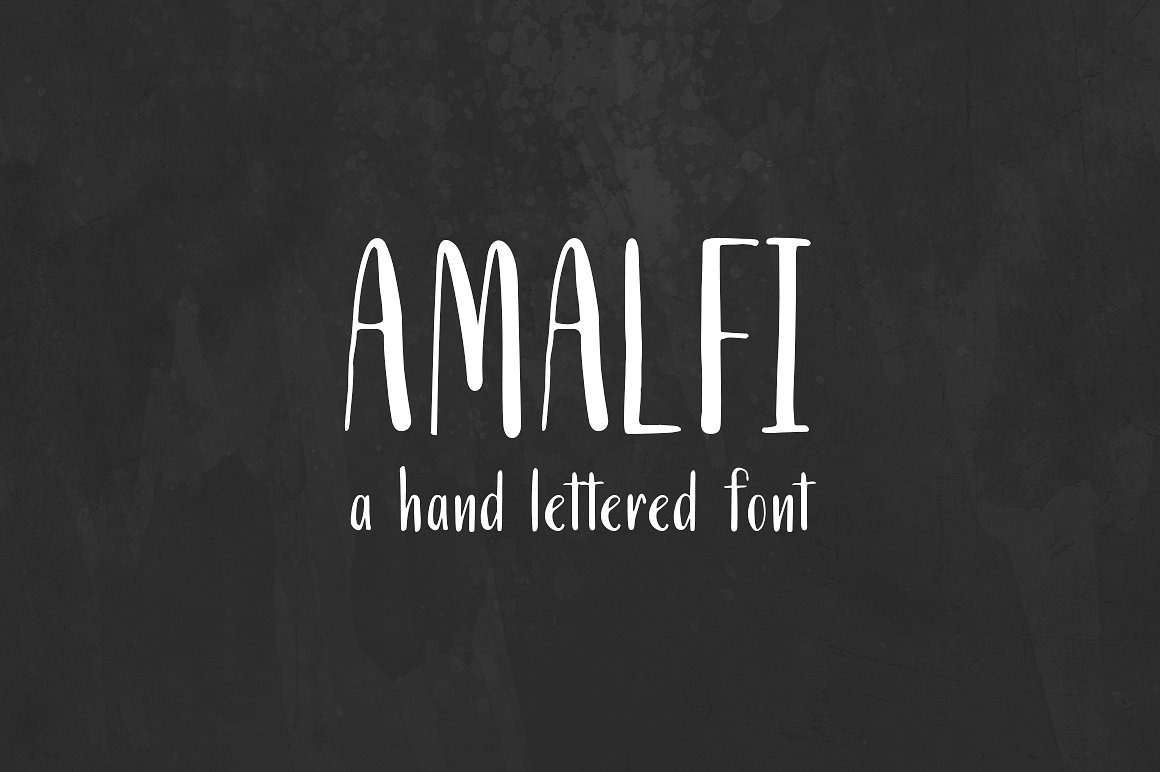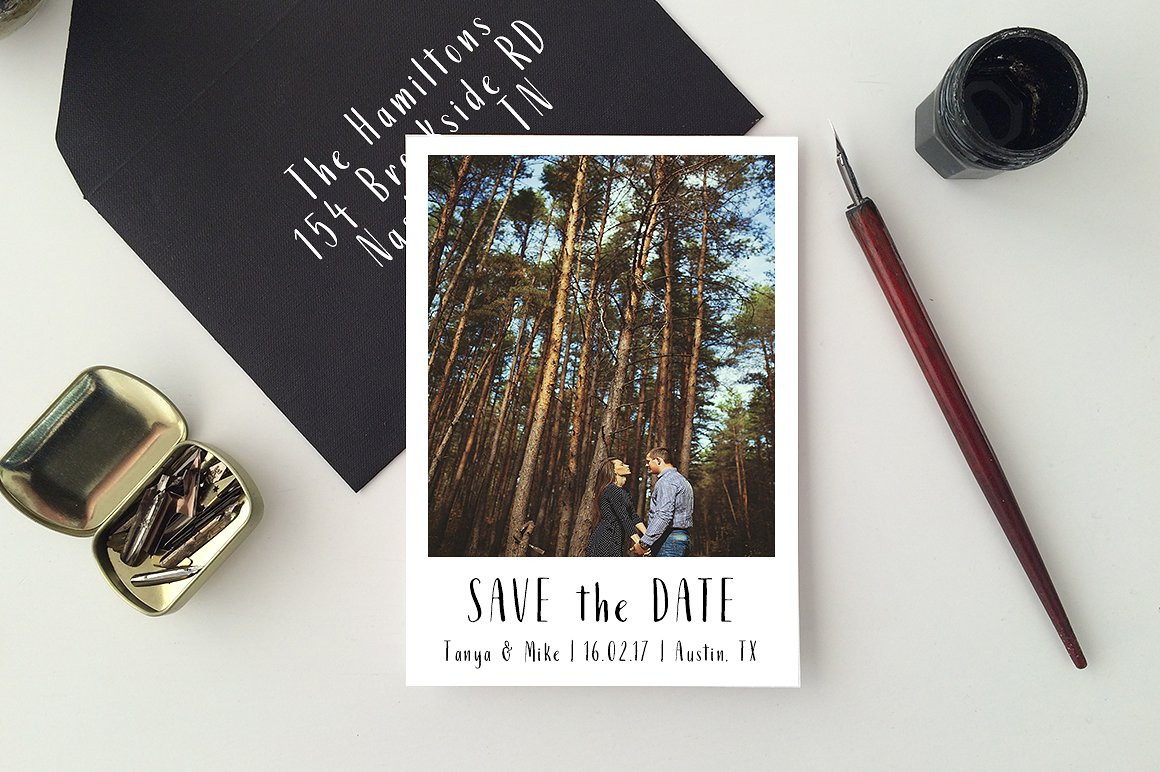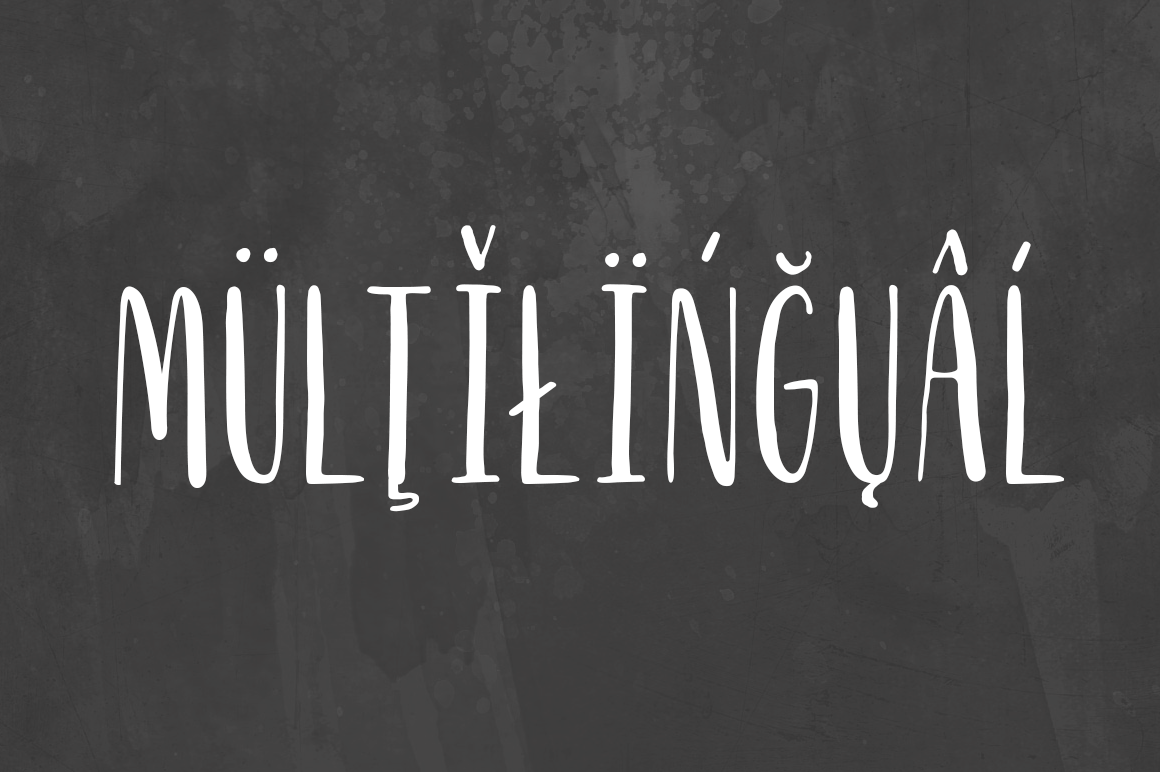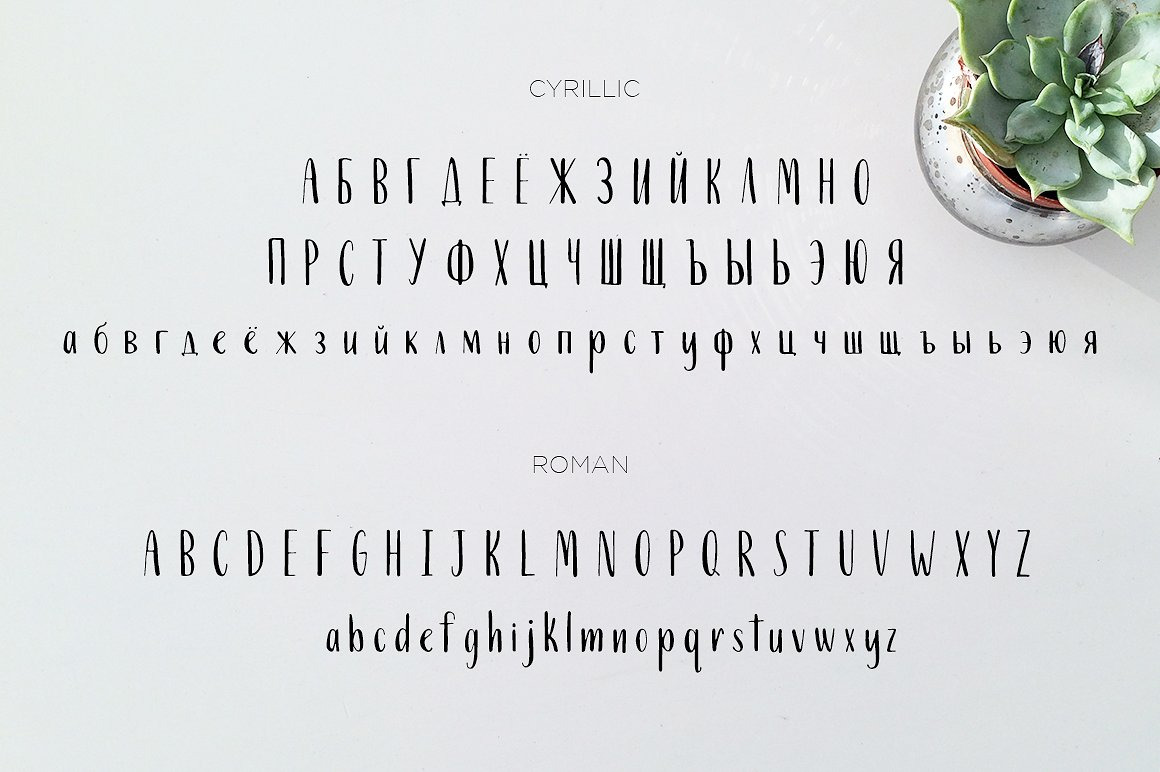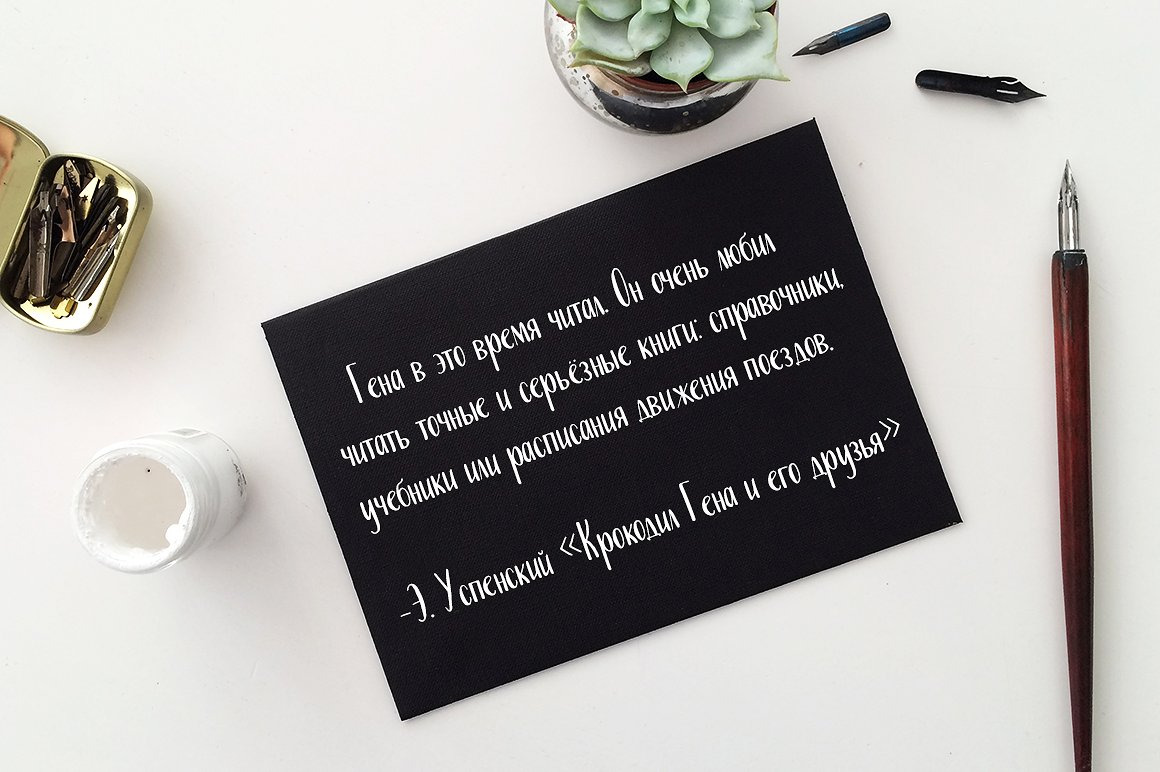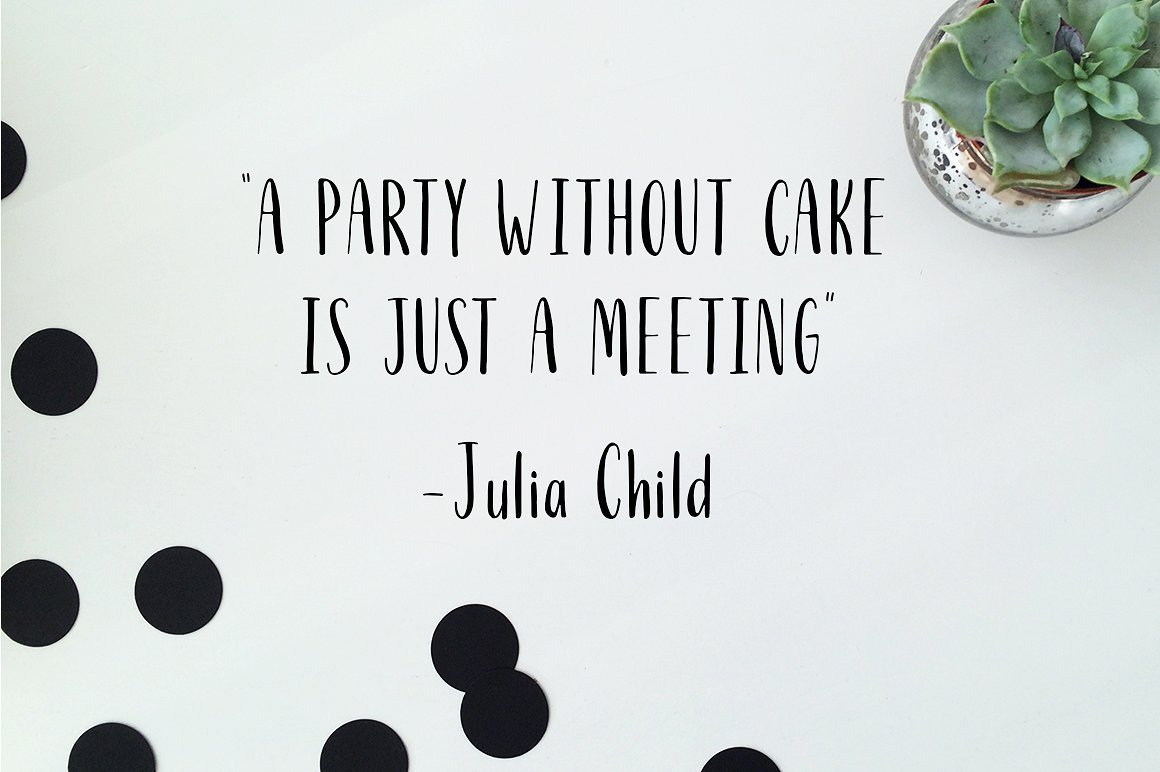
Amalfi. Multilingual + Cyrillic Font
Amalfi Multilingual Cyrillic Font is perfect for international branding, multilingual publications, global marketing campaigns, cultural projects, Eastern European websites, Russian language materials, Ukrainian publications, Bulgarian designs, Serbian content, and worldwide corporate communications.
What makes Amalfi Multilingual Cyrillic Font so exciting is its comprehensive language support that bridges Latin and Cyrillic scripts seamlessly while maintaining consistent design harmony. This exceptional typeface enables designers to create cohesive multilingual projects without compromising typographic quality or visual unity.
The Amalfi Multilingual Cyrillic Font family includes regular, medium, and bold weights with complete Latin and Cyrillic character sets, featuring authentic letterforms for Russian, Ukrainian, Bulgarian, Serbian, Macedonian, and other Cyrillic-based languages.
Expand your global design capabilities with Amalfi Multilingual Cyrillic Font Free Download, a professionally crafted typeface that opens new possibilities for international communication and cross-cultural design projects. This remarkable font represents the future of global typography, offering seamless integration between Western and Eastern European languages.
The expertly designed letterforms of Amalfi Multilingual Cyrillic Font ensure authentic representation of Cyrillic script traditions while maintaining perfect harmony with Latin characters. Each glyph has been carefully crafted to preserve the cultural integrity of both writing systems, creating a unified typographic voice that works beautifully across language boundaries. The font's balanced proportions and consistent stroke weights provide excellent readability in all supported languages.
International brands and multicultural organizations rely on Amalfi Multilingual Cyrillic Font for projects requiring authentic multilingual typography. The comprehensive character set includes proper diacritical marks, currency symbols, and specialized punctuation for all supported languages, ensuring professional results in complex multilingual compositions and global publishing applications.
Transform your international design projects with Amalfi Multilingual Cyrillic Font Free Download. This exceptional typeface breaks down language barriers while elevating the quality of multilingual communication through superior typography that respects cultural authenticity.